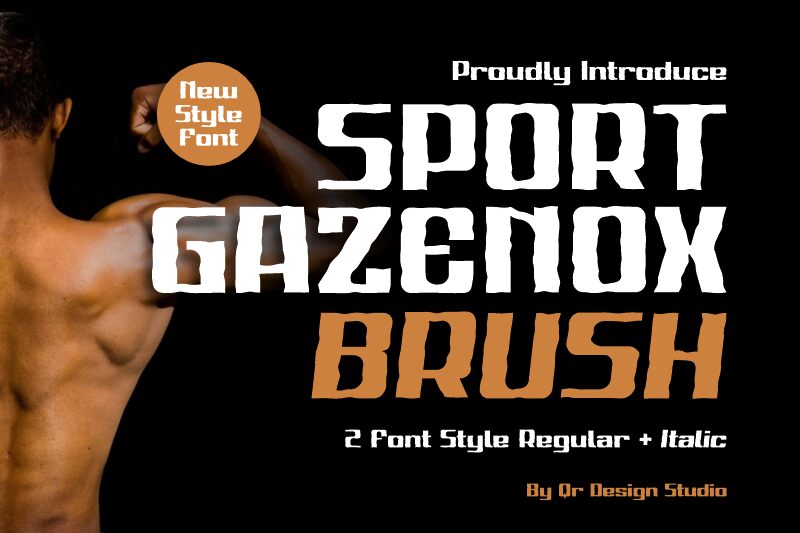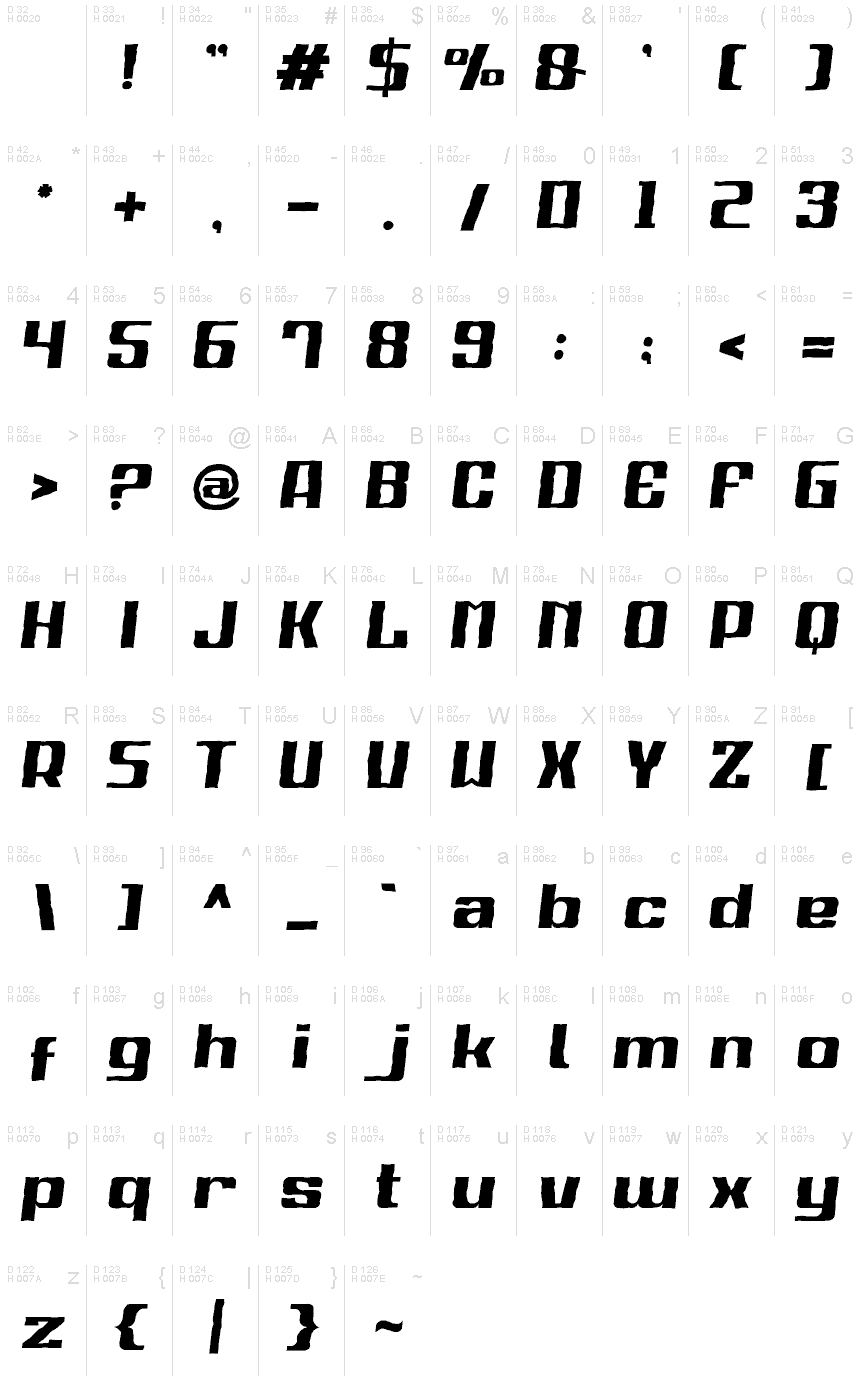
Sport Gazenox Brush Italic
Sport Gazenox Brush Italic font by Qr Design is an expanded and eroded display font with an industrial, angular design. This energetic font is bold, assertive, and rugged with a sporty feel that can be noticed in the style of writing. Mixes of thin and thick strokes create an unusual pattern that will stand out when added to your work.
A free display font suitable for branding projects including logos for sport or automobile teams. Some other ideas are magazines, headlines, packaging designs (especially food), and posters. Use also in apparel design like T-shirts or hoodies prints that require attention-grabbing lettering.